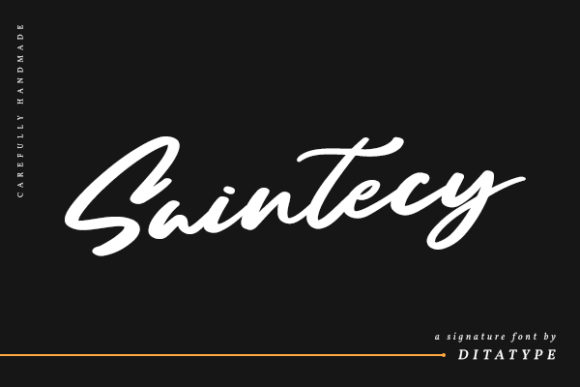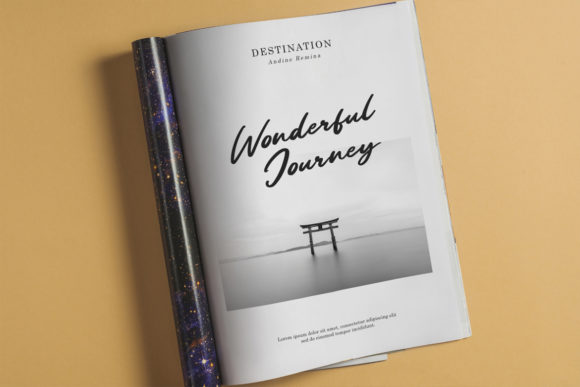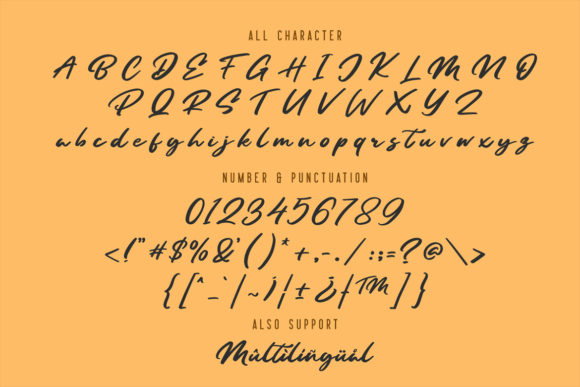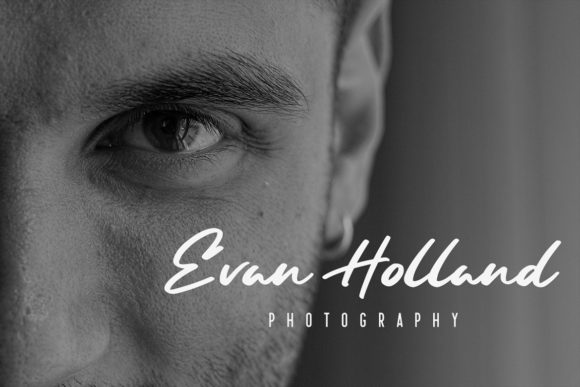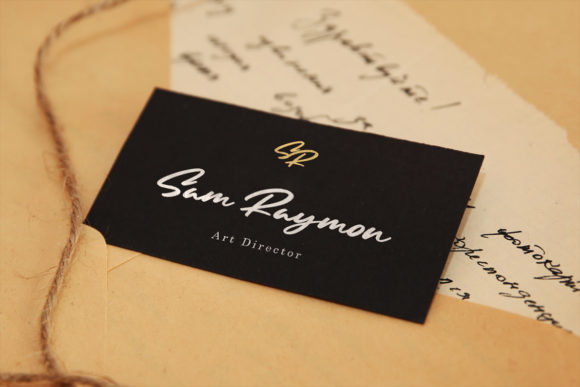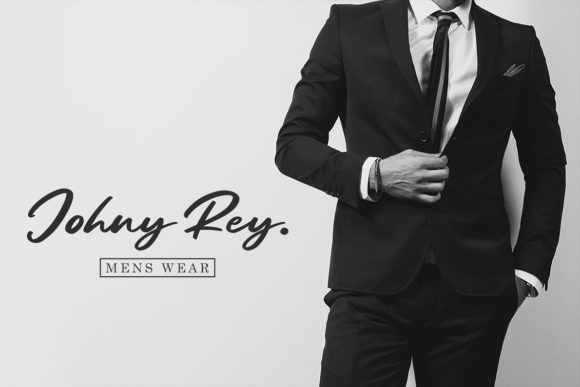
Saintecy Font
About Saintecy Font
Saintecy is an equally relaxed and timeless handwritten font. It features an incredibly classic style, while still keeping a friendly feel. Saintecy is the perfect font for making original and outstanding designs, whether for formal or informal projects.